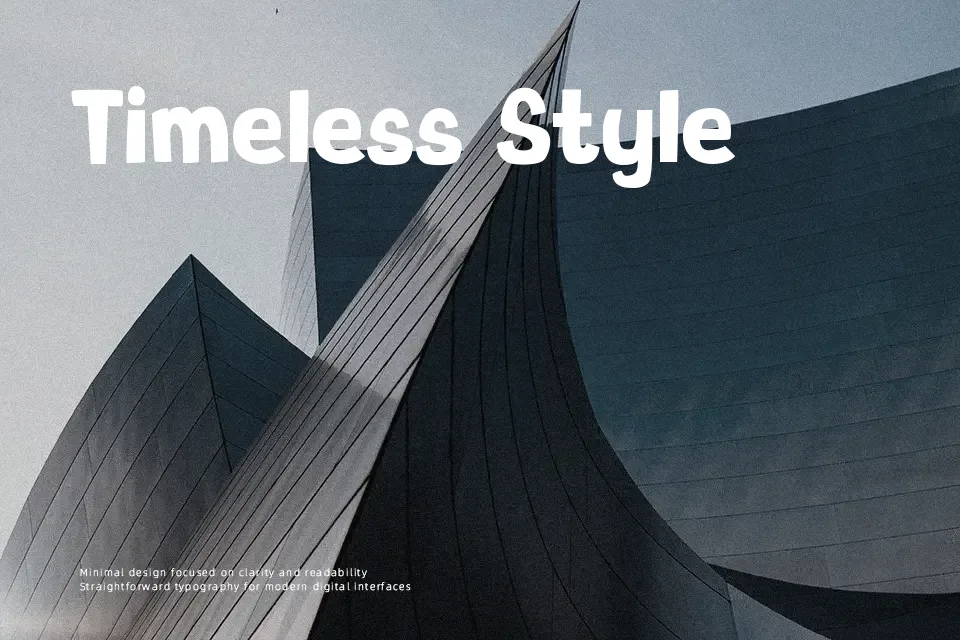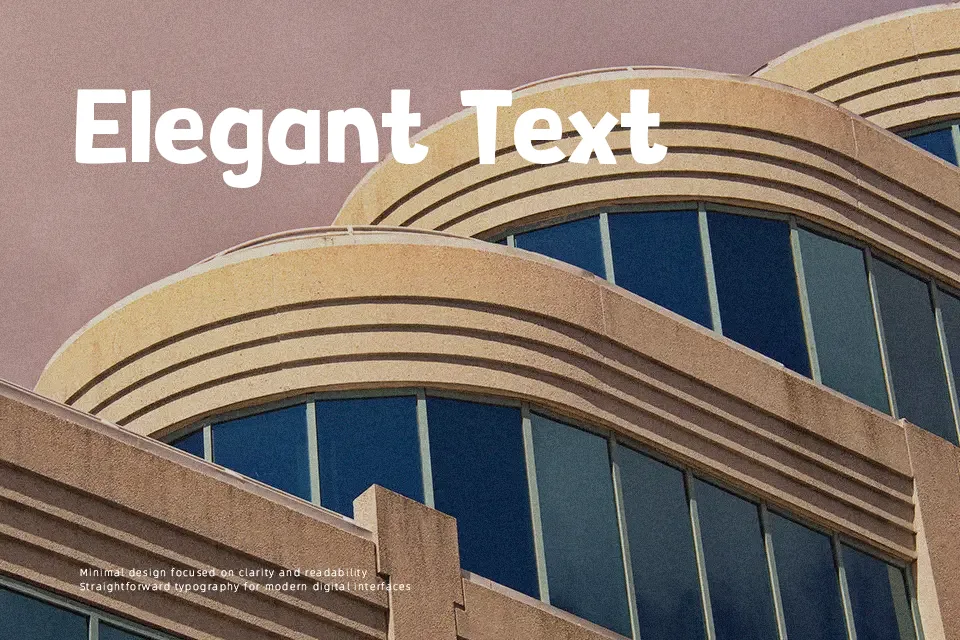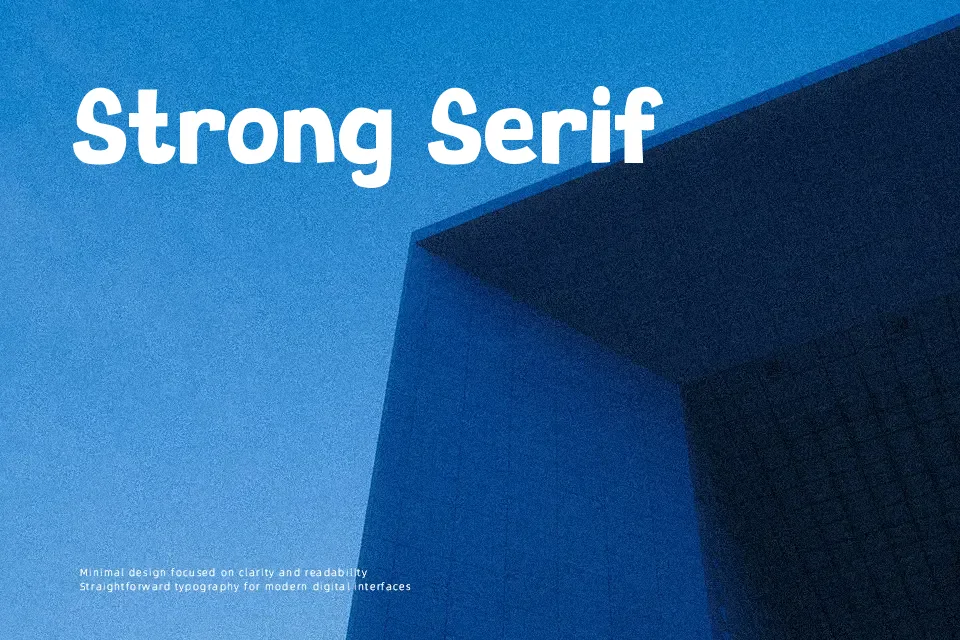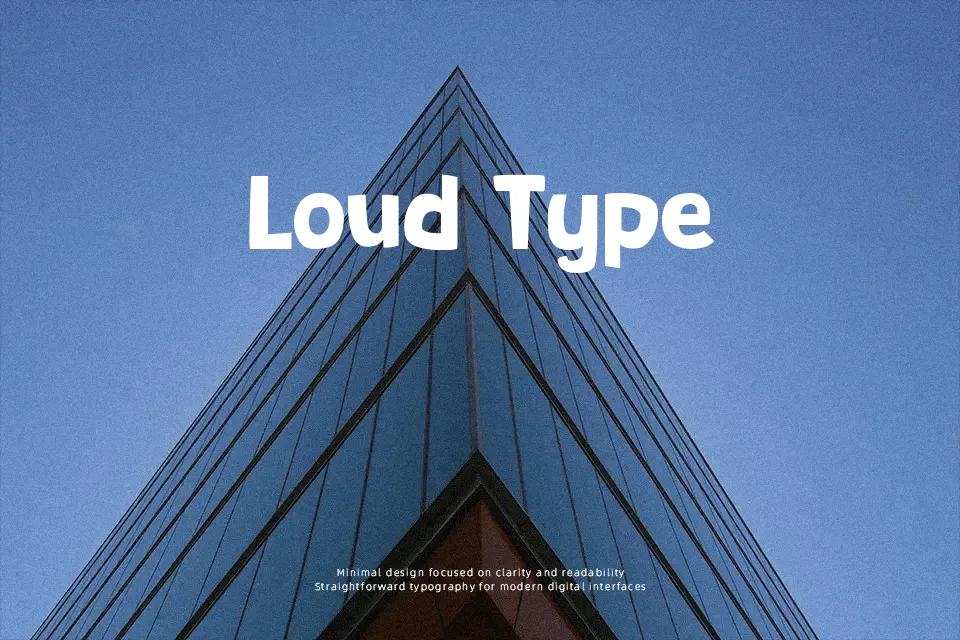
Bingo Font
Bingo delivers a burst of youthful energy through its chunky, slightly irregular letterforms and a bouncy baseline. This casual display typeface features heavy, rounded strokes that naturally command attention while maintaining an approachable, informal style. It excels when applied to children’s merchandise, energetic festival flyers, or bold toy packaging, where a strong but friendly voice is required. However, the inherent playfulness means it struggles in formal contexts or long-form paragraphs; the thick weight quickly reduces readability at smaller print sizes. Compared to standard geometric sans-serifs, Bingo leans heavily into a whimsical aesthetic, ensuring your headline typography feels less like a strict statement and more like an inviting, spirited shout.
Eye-catching children’s book titles
Vibrant toy and game packaging
Playful apparel graphics for kids
Small body copy or dense paragraphs
Corporate branding or serious financial documents
High-end luxury editorial layouts
Perfect for headline, kids, and packaging, with a cute and cartoon style.